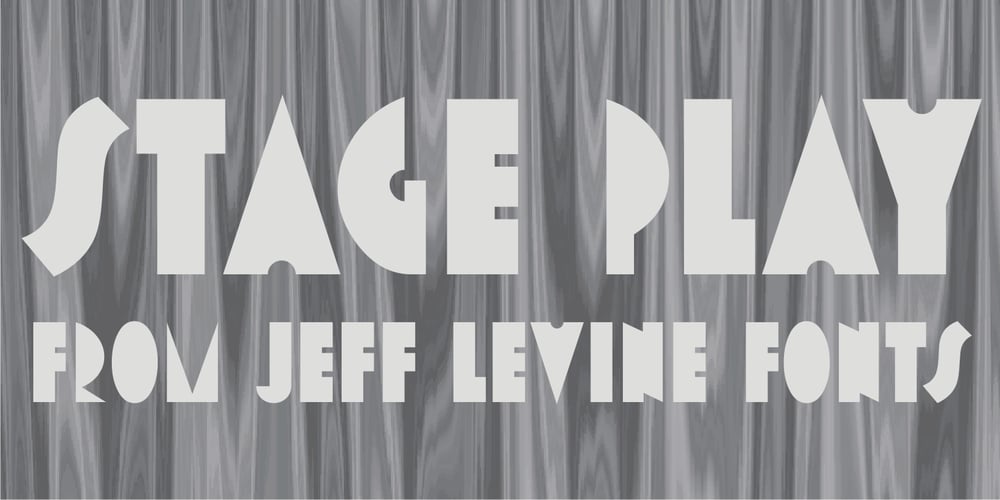
Stage Play JNL Font Family was designed by Jeff Levine and published by Jeff Levine. Stage Play JNL contains 1 styles and family package options. Vintage sheet music for Earl Carroll’s dramatic mystery-comedy production “Murder at the Vanities” has its title hand-lettered in the Art Deco style which served as the basis for Stage Play JNL.